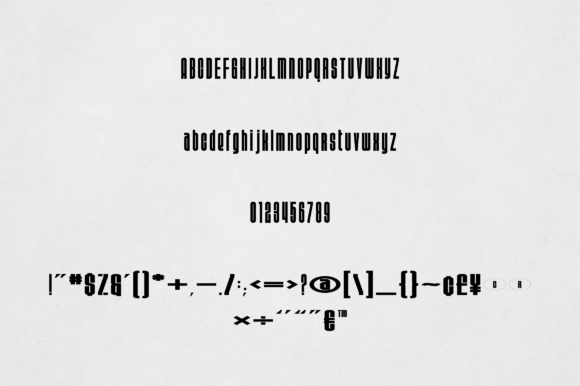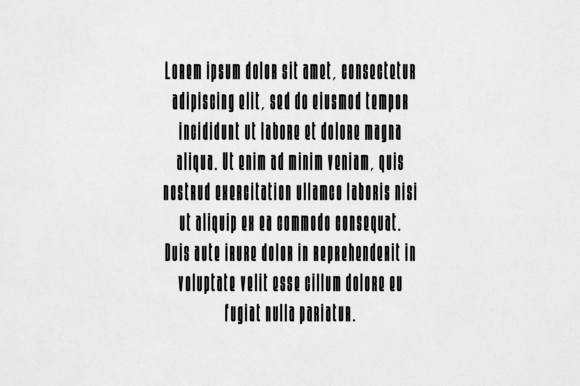
Aster Font: Elevate Your Typography with Elegance and Versatility
In the world of typography, a font can make or break the visual appeal of a design. If you’re a designer or crafter looking for a font that can add a touch of elegance and uniqueness to your projects, look no further than Aster Font. This stunning sans serif font is designed to make your typography truly stand out, whether you’re working on a logo, branding, headline, or plain text.
What Makes Aster Font So Special?
Aster Font is an elegant and versatile sans serif font that is perfect for a wide range of design projects. Its clean and modern lines make it an ideal choice for designers who want to create a sophisticated and stylish look. The font’s versatility means it can be used in various contexts, from branding and advertising to packaging and editorial design.
Aster Font is a font that can be used in many different design projects. Here are some ideas to get you started:
- Branding Projects: Use Aster Font to create a unique and memorable brand identity. Its elegant lines and sophisticated style make it perfect for logos, business cards, and other branding materials.
- Home-Ware Designs: Add a touch of style to your home-ware designs with Aster Font. Use it to create beautiful labels, packaging, and other design elements that will make your products stand out.
- Product Packaging: Aster Font is perfect for product packaging, whether you’re designing labels for food, cosmetics, or other products. Its clean and modern lines make it easy to read and visually appealing.
- Magazine Headers: Use Aster Font to create stunning magazine headers that will grab the attention of your readers. Its elegant style and versatility make it perfect for a wide range of editorial design projects.
- Text Overlays: Add a touch of style to your background images with Aster Font. Use it to create beautiful text overlays that will make your images stand out.
Key Features of Aster Font
Aster Font has several key features that make it an ideal choice for designers and crafters. Here are some of the benefits of using this font:
- Elegant and Versatile: Aster Font is an elegant and versatile sans serif font that can be used in a wide range of design projects.
- Clean and Modern Lines: The font’s clean and modern lines make it easy to read and visually appealing.
- High-Quality Design: Aster Font is designed to high standards, ensuring that it will look great in any design project.
Tips for Using Aster Font
Here are some tips for using Aster Font in your design projects:
- Experiment with Different Sizes: Aster Font looks great in a variety of sizes, from large headings to smaller body text.
- Pair it with Other Fonts: Aster Font pairs well with other fonts, so don’t be afraid to experiment with different combinations.
- Use it to Create Contrast: Use Aster Font to create contrast in your design by pairing it with images or other design elements.
Aster Font is an elegant and versatile sans serif font that is perfect for designers and crafters who want to add a touch of elegance and uniqueness to their projects. Its clean and modern lines make it easy to read and visually appealing, while its versatility means it can be used in a wide range of design projects. Whether you’re working on a branding project, home-ware design, or editorial design, Aster Font is a great choice.